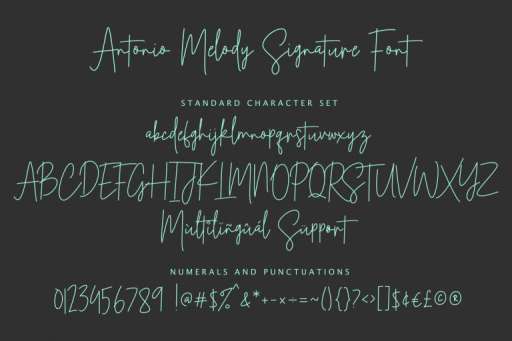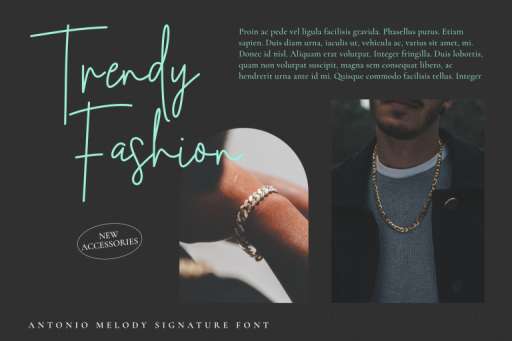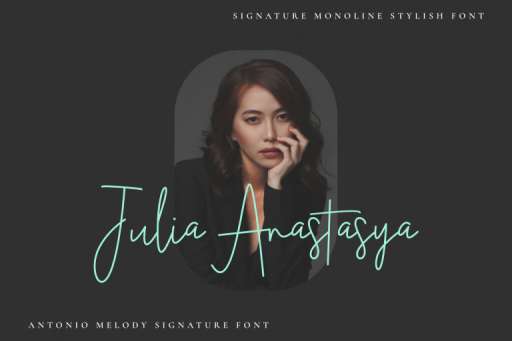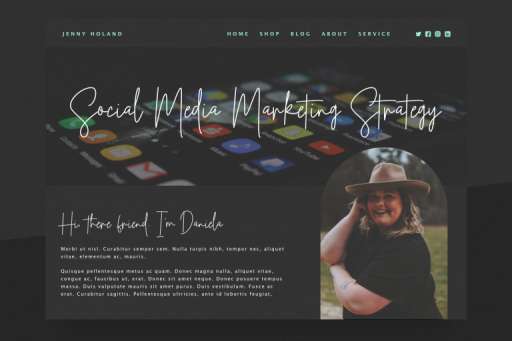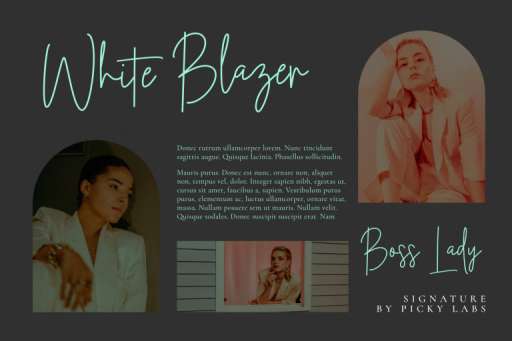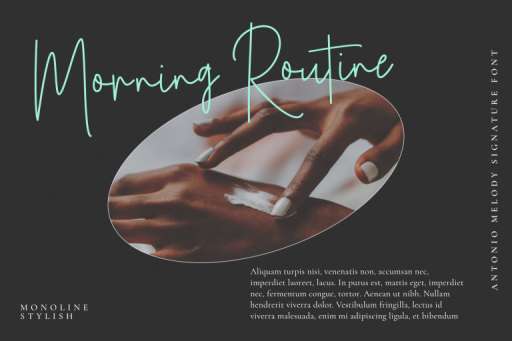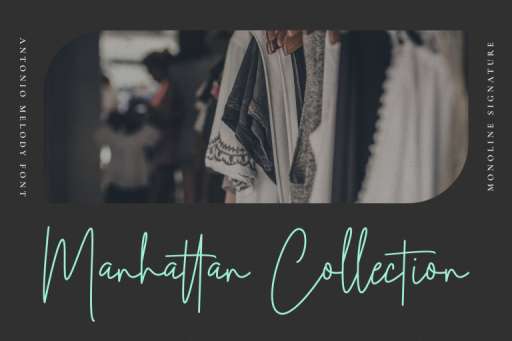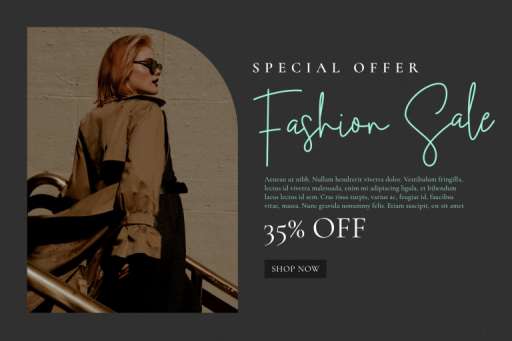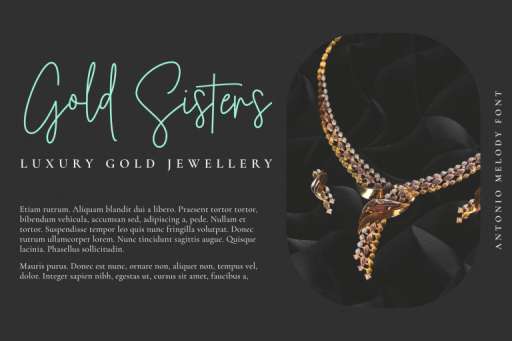
Antonio Melody Signature Font From Jimtype Studio
Antonio Melody Font
Antonio Melody – Signature Business Font
Antonio Melody Signature font is a modern feminine font with a monoline script that you can use to perfect your design. Every single letter has been carefully crafted to make your text looks beautiful.
Antonio Melody Signature is a great choice for branding, social media project, logos, posters, blog posters, product design, advertising, and many other design projects.
Antonio Melody Signature Font
Antonio Melody Signature font is a modern feminine font with a monoline script that you can use to perfect your design. Every single letter has been carefully crafted to make your text looks beautiful.